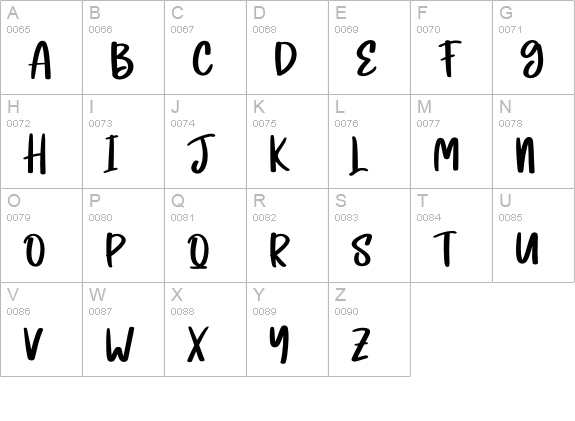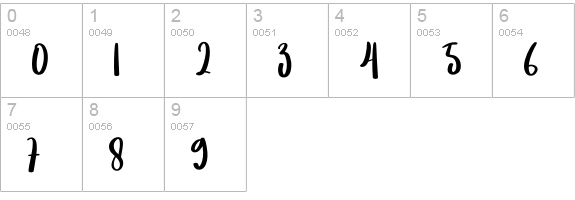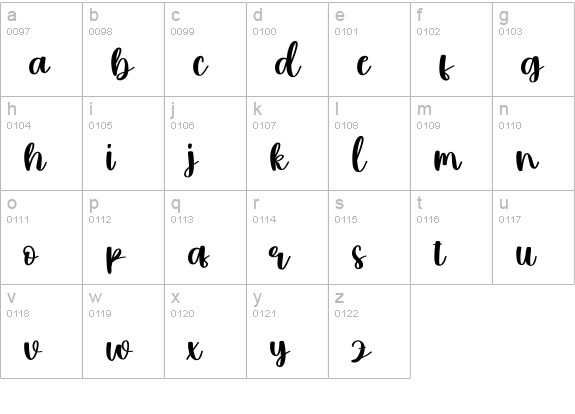
Bruney Font Details
Bruney is a free for personal use font in the Script > Handwritten category, designed by scratchones. It has been downloaded 33 times and is available for Windows, Mac and Linux.
Introducing Bruney font - a versatile and stylish typeface that exudes elegance and sophistication. With its clean lines and modern aesthetic, Bruney font is perfect for a wide range of design projects, from branding to editorial design.
With its timeless design and easy readability, Bruney font is a must-have in any designer's toolkit. Download it today and elevate your projects with this stunning typeface.